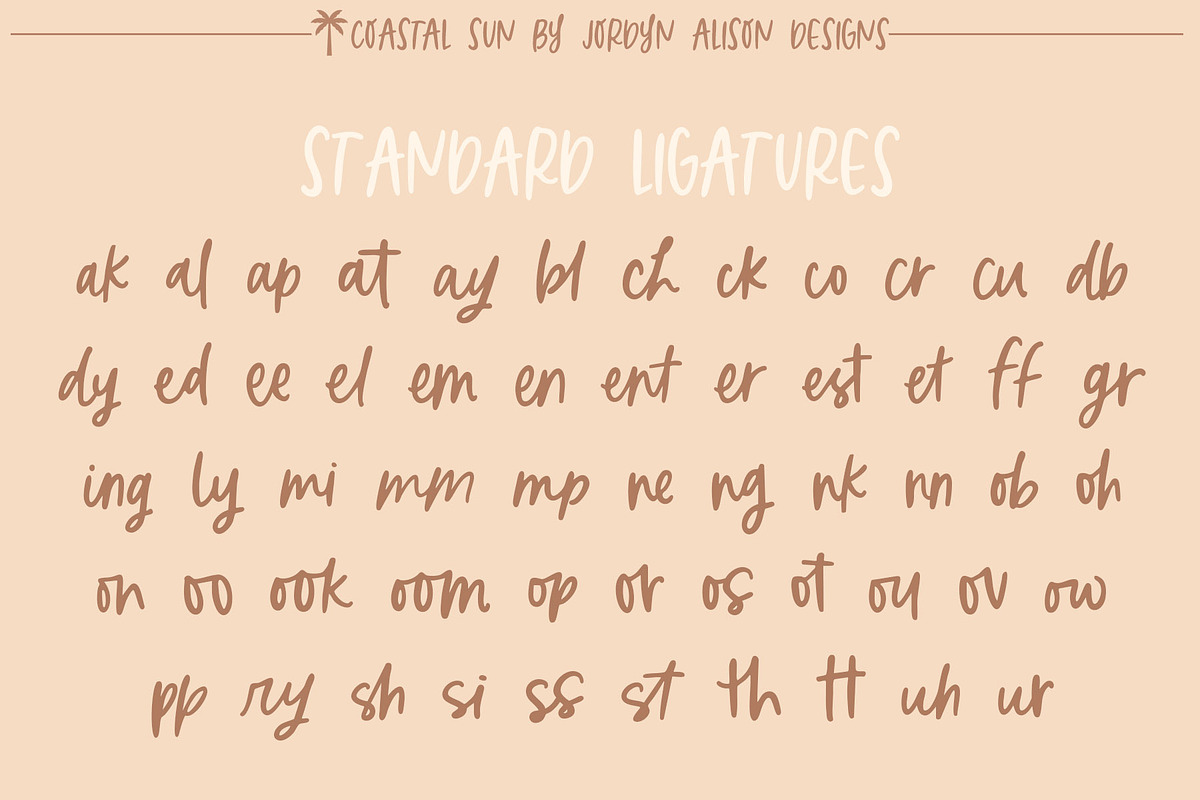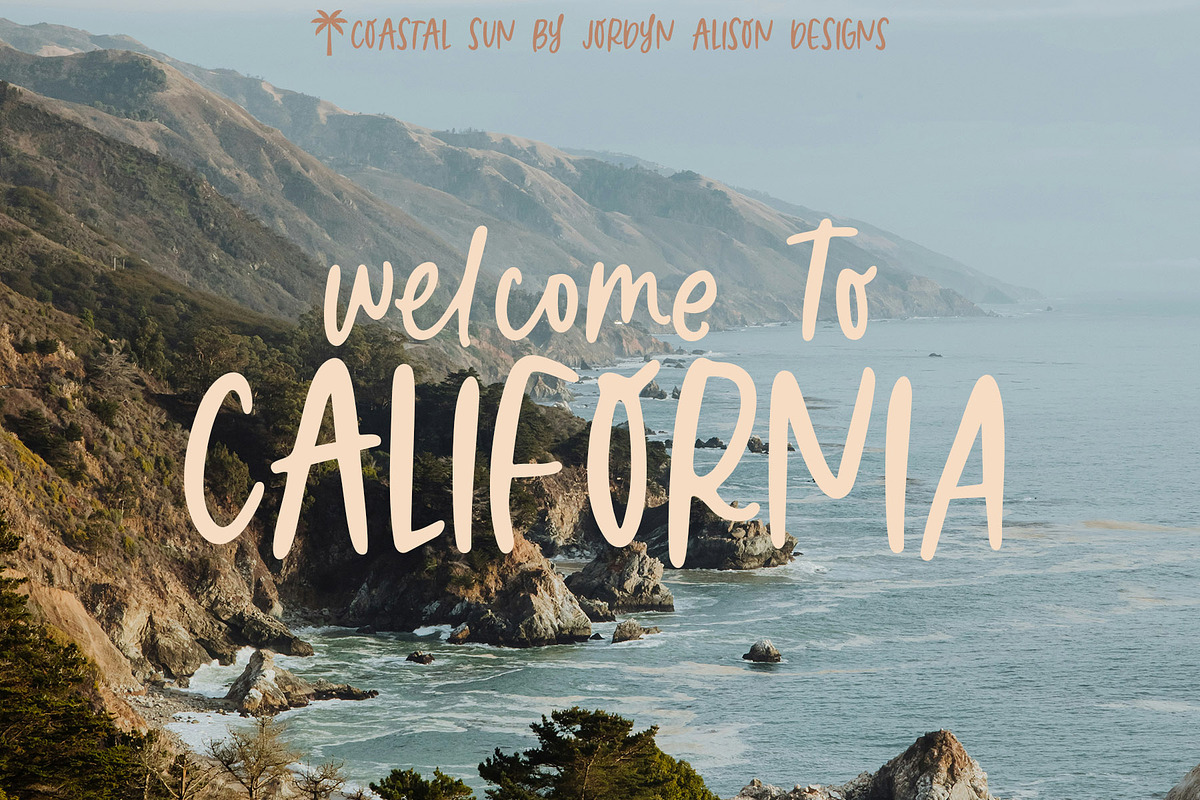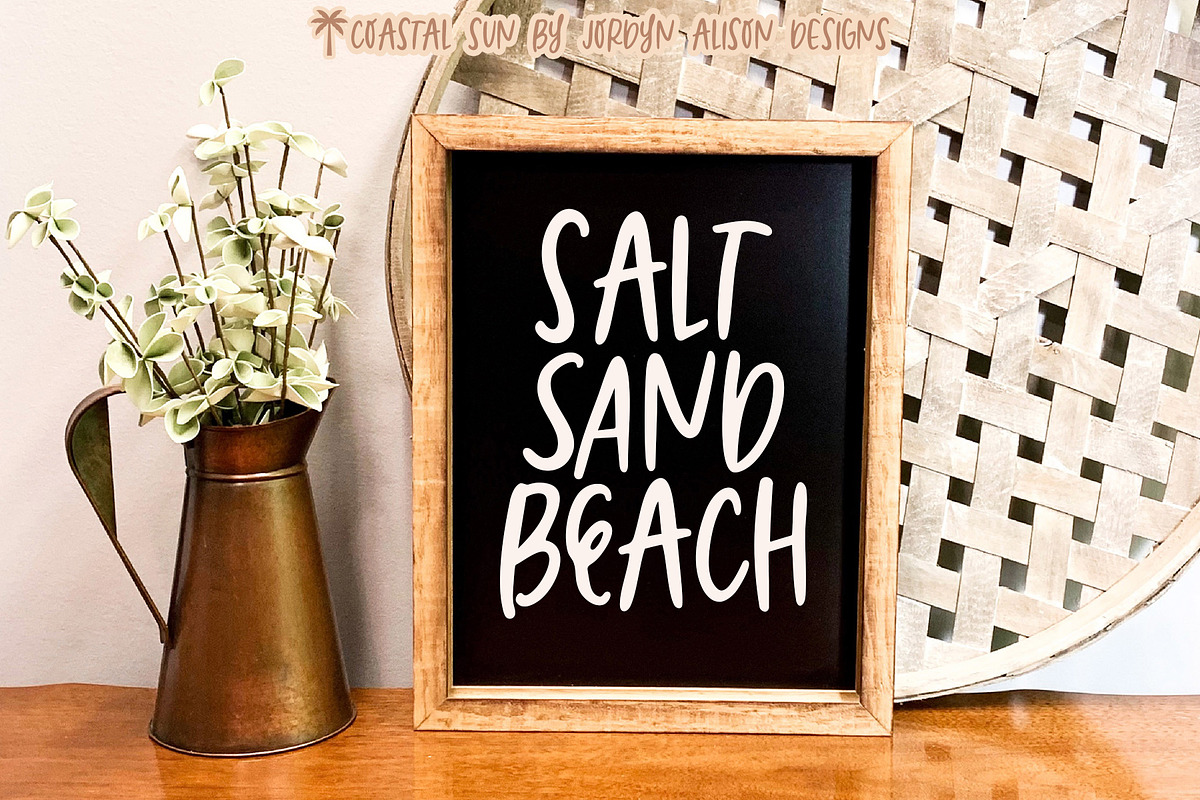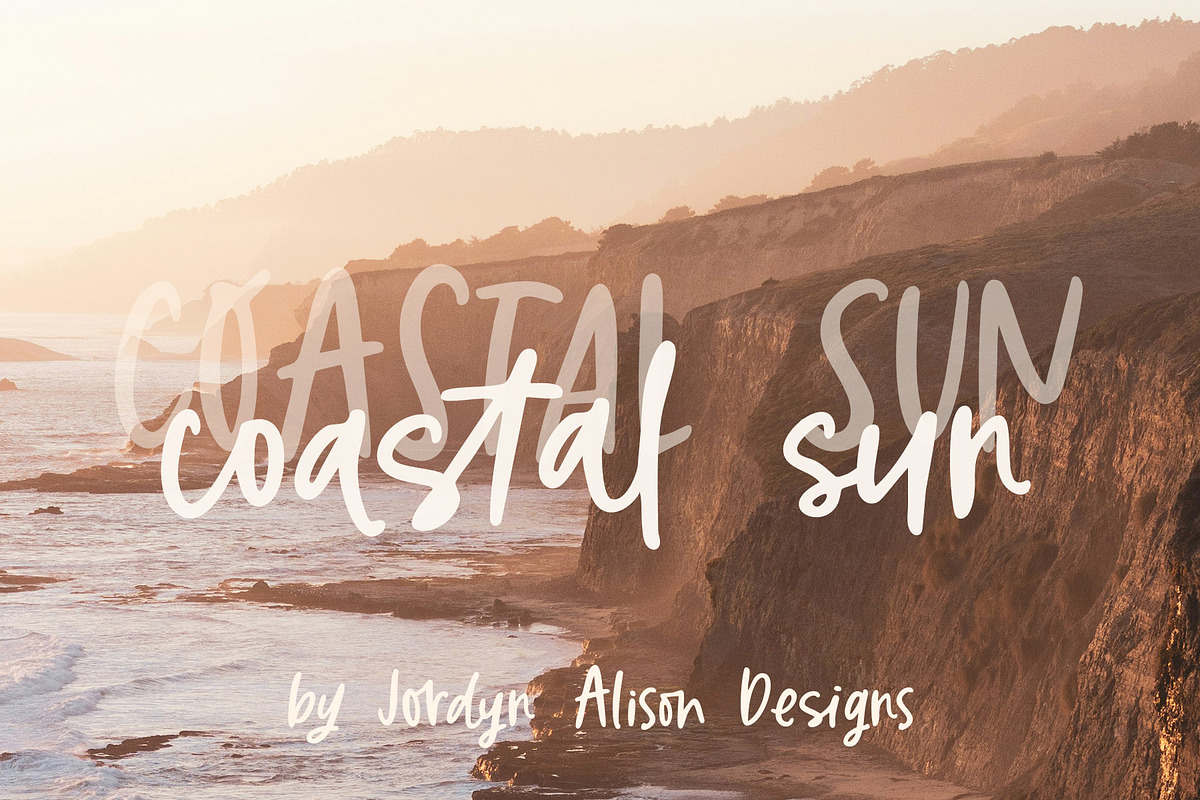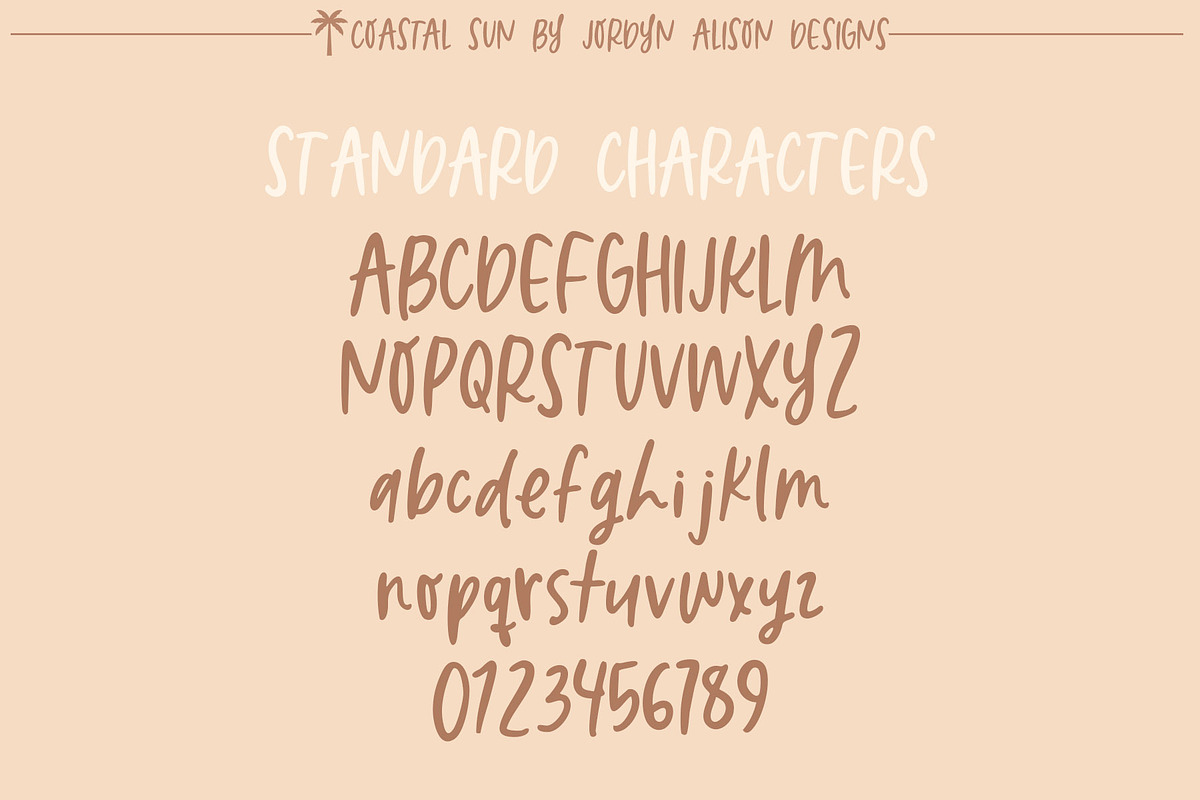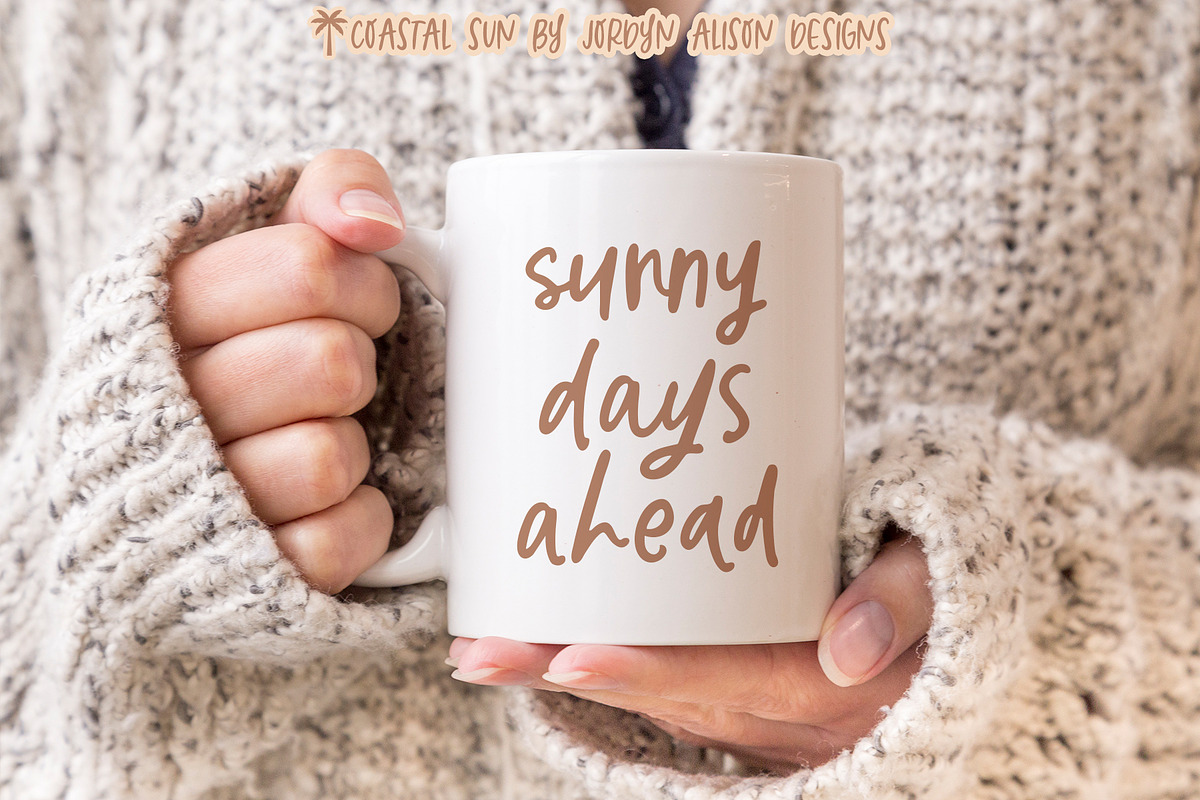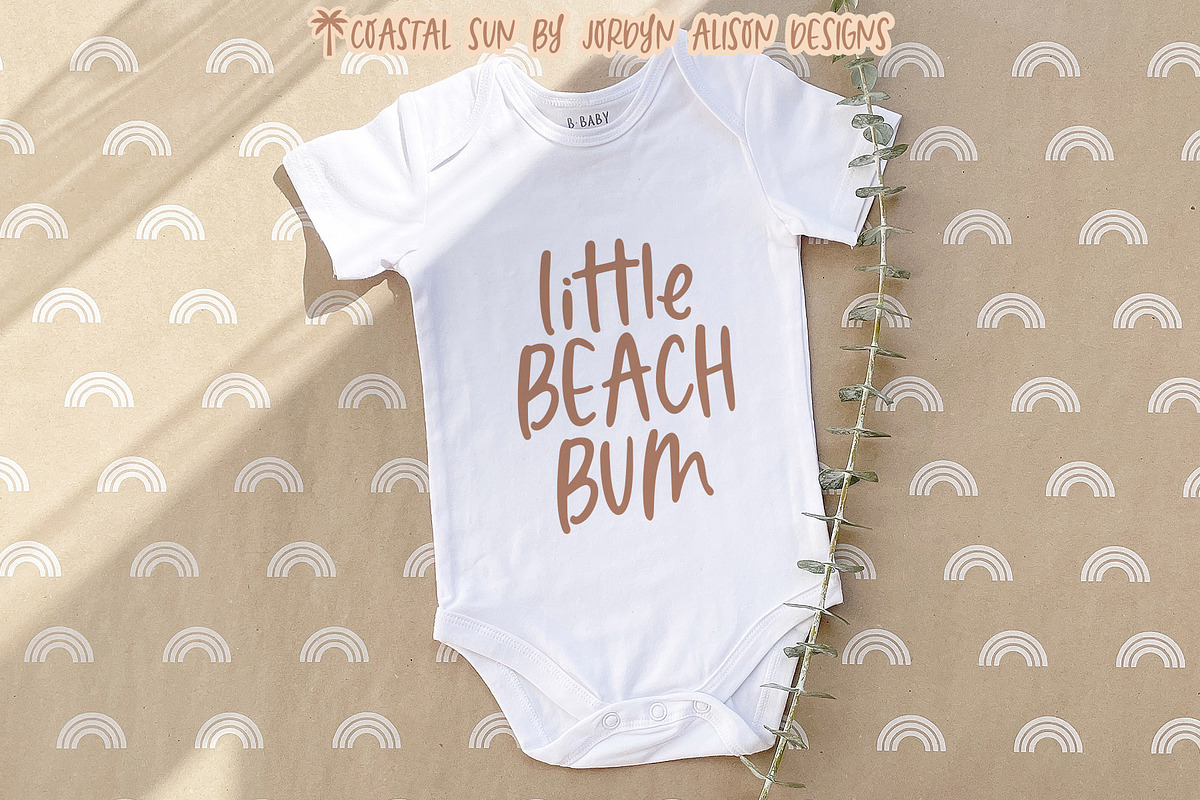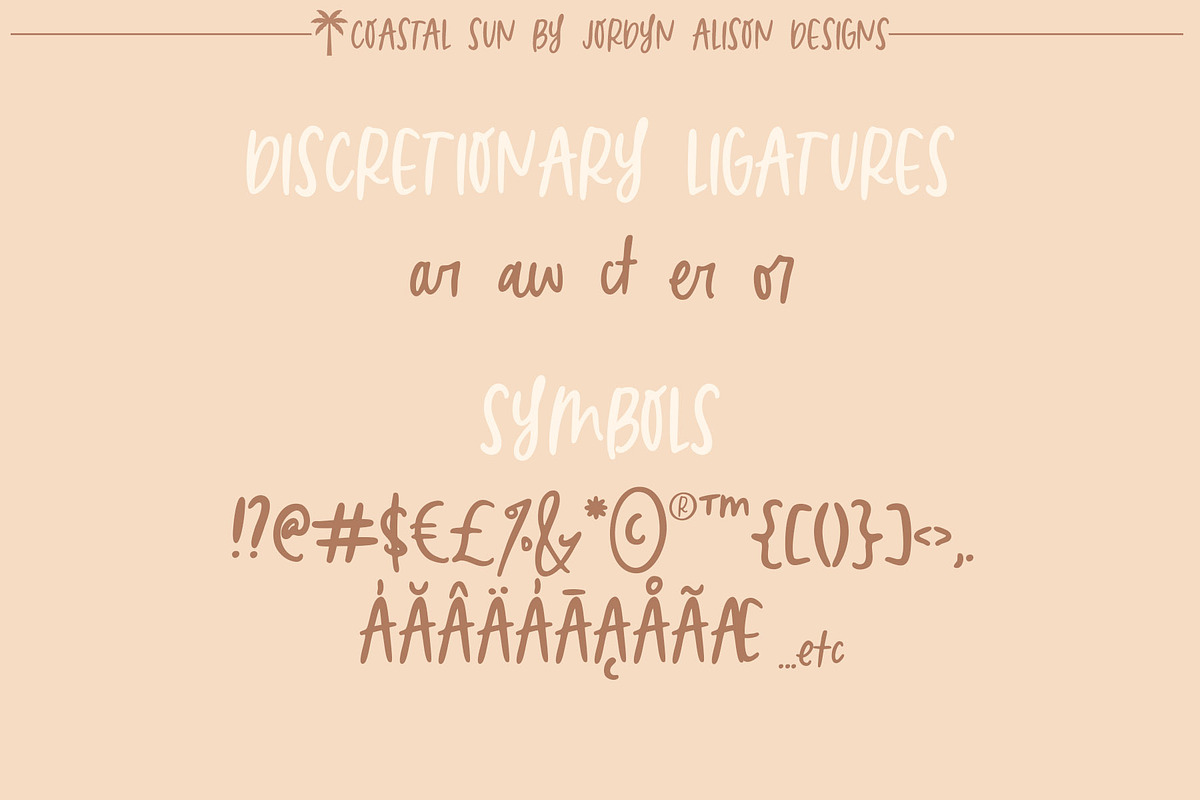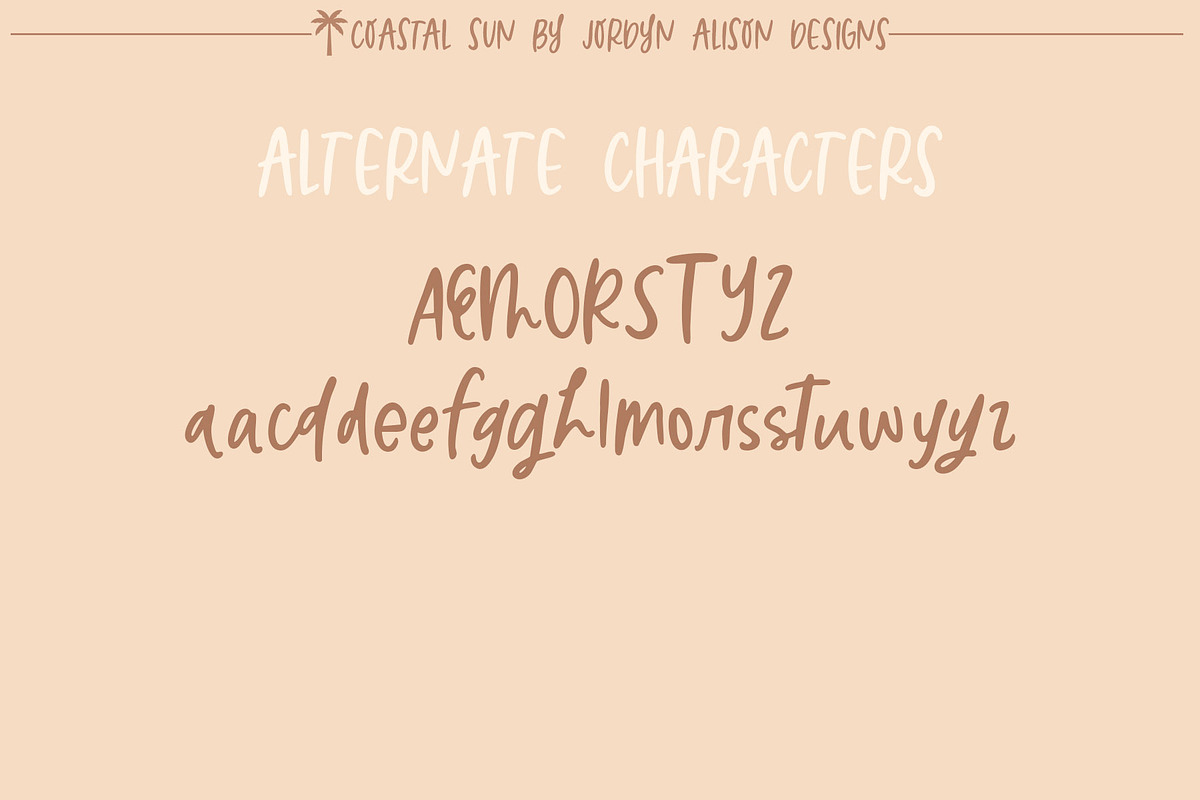
Coastal Sun Font
Coastal Sun is a playful, bouncy font inspired by the laid-back vibes of California. With loose, carefree characters, it adds a touch of sunshine and charm to your designs. Perfect for social media graphics, branding, digital designs, and creative projects that need a relaxed yet eye-catching style.
- Full set of lowercase and uppercase letters
- Full set of symbols
- 56 standard ligatures (yes!!)
- 5 discretionary ligatures
- 32 alternate characters